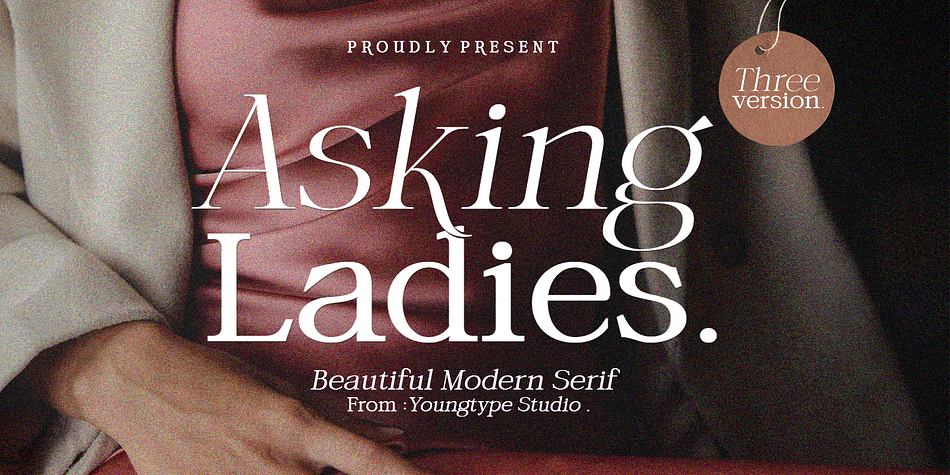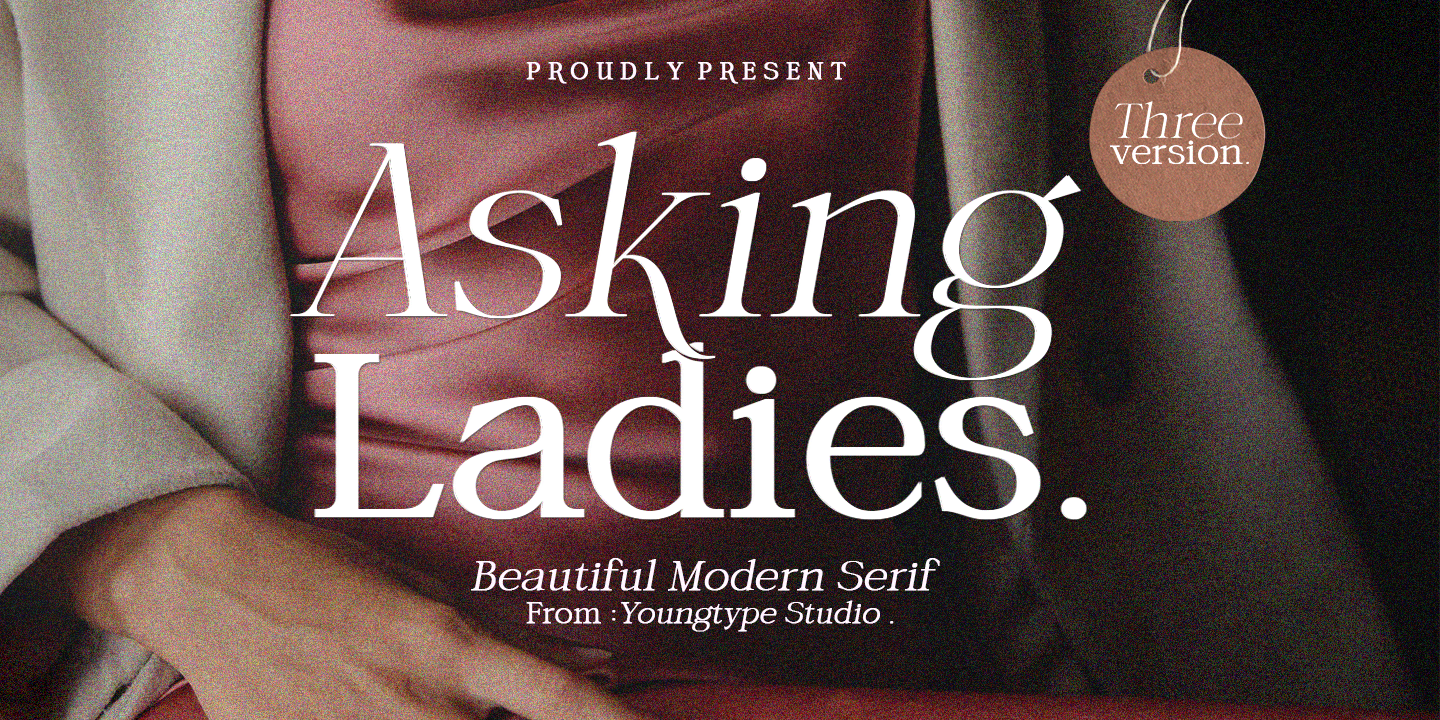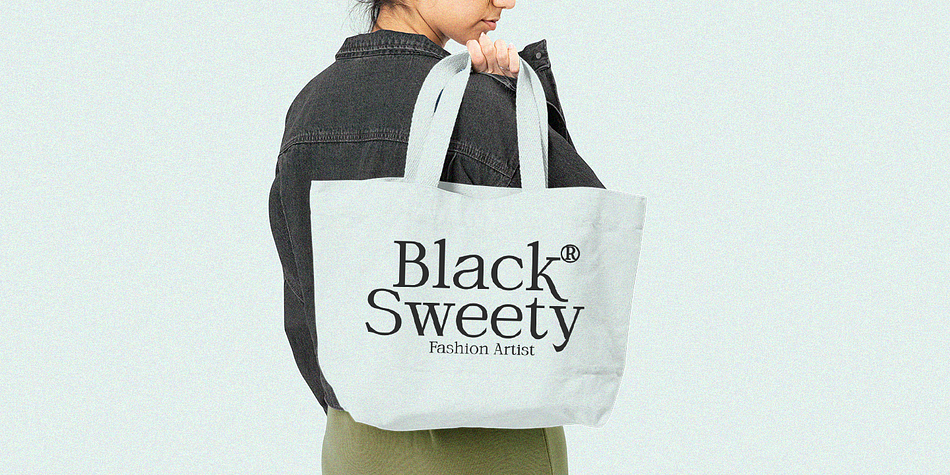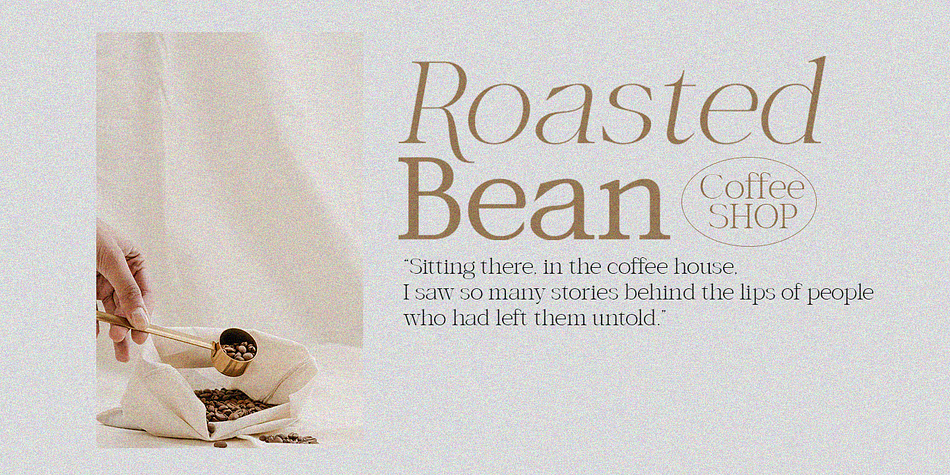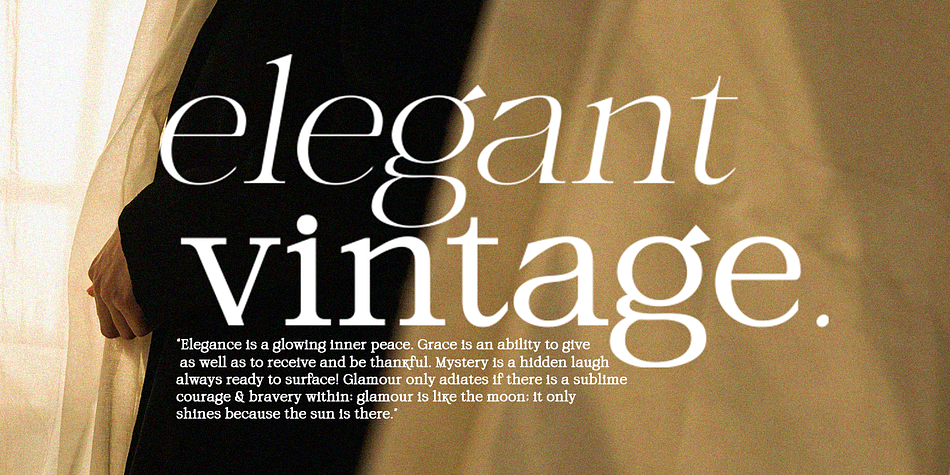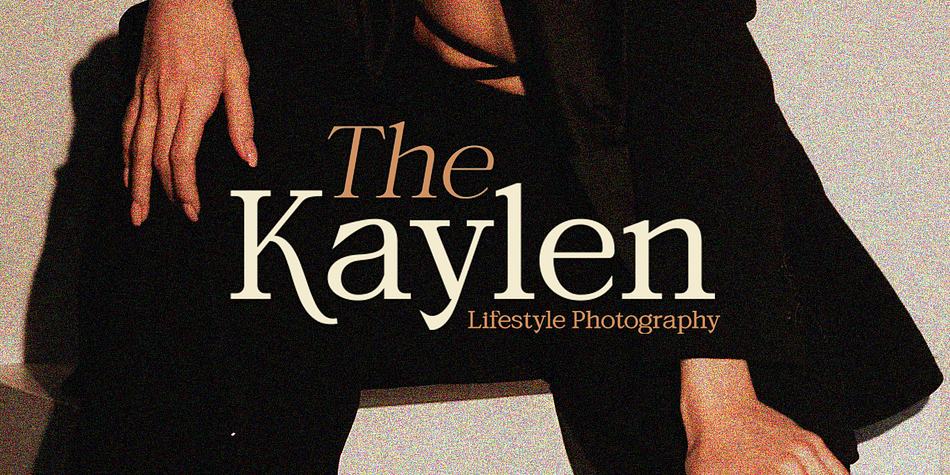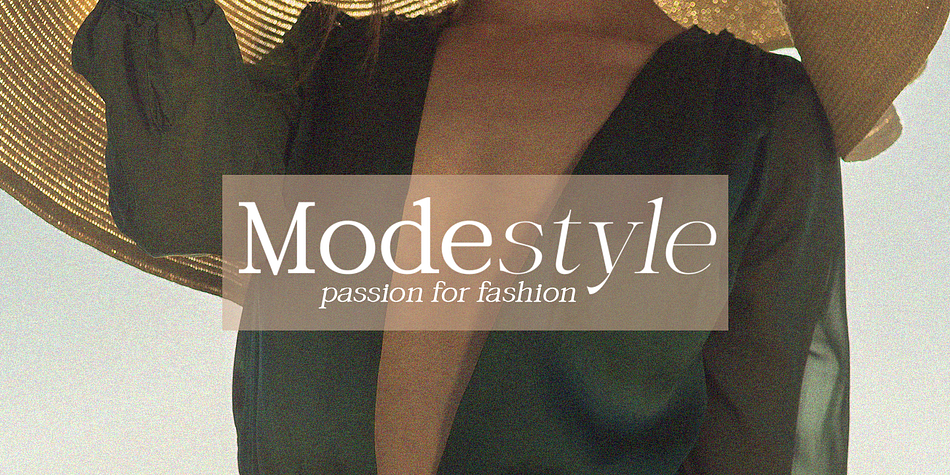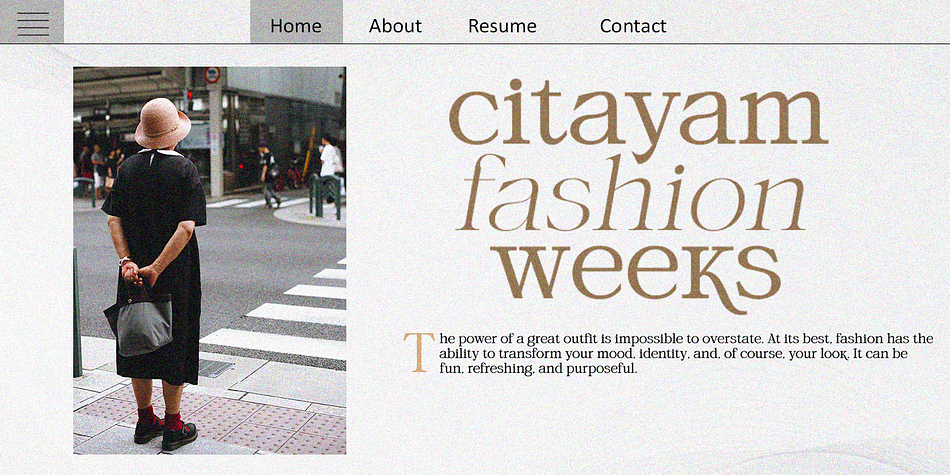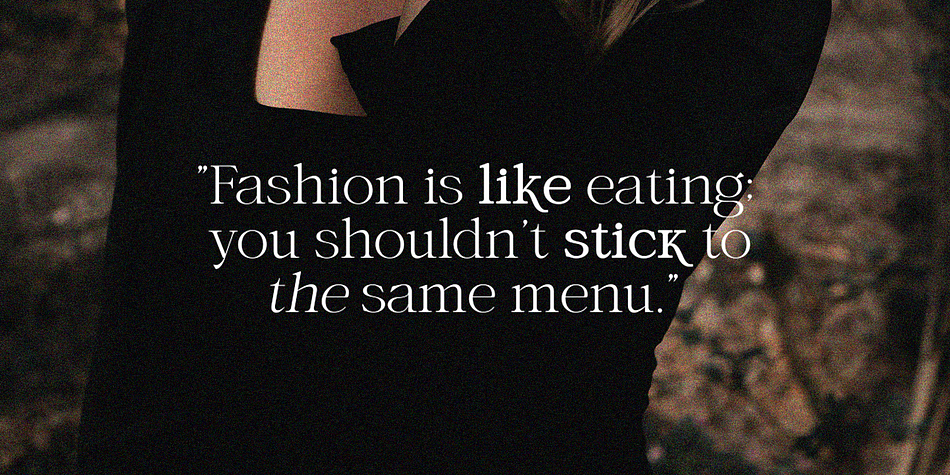
Asking Ladies
Asking Ladies is a display serif font family. This typeface has three styles and was published by Youngtype Studio.
New Asking Ladies Beautiful Modern Serif .
This professional resource is also powerful because each font has its own magical design. Equipped with three versions Regular, Italic & Bold.
You can use it for almost anything like blog headers, posters, wedding elements, t-shirts, clothing, book covers, business cards, greeting cards, branding, invitations and quotes, and so on.